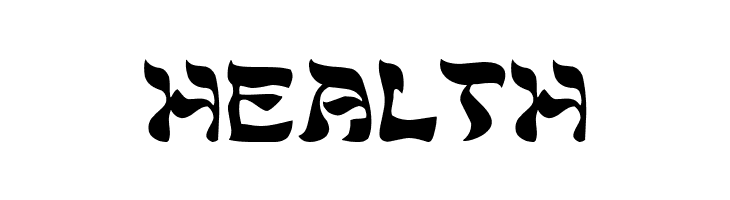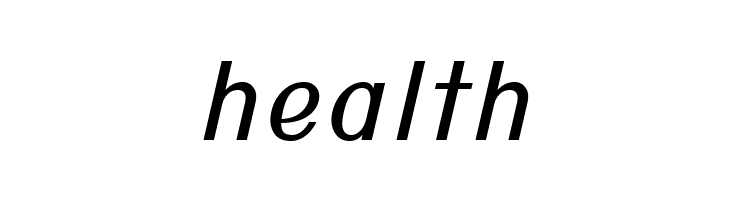
Alice Regular Font
A classic serif font with elegant strokes and balanced proportions.
Pressuru Font
A bold, impactful font with thick, uniform strokes for strong visual presence.
Motion Picture Personal Use Font
A bold, elegant script font with decorative swashes and loops.
Cursive Serif Font
A sophisticated blend of cursive fluidity and serif structure.
DS Sholom Medium Font
A bold, dynamic font with sharp, angular edges and a flowing, artistic style.
Cursive Sans Font
A modern cursive-sans font with elegant slants and fluid readability.
Modern Antiqua Font
A modern serif font with elegant curves and a classic touch.
DS Diploma Art Bold Font
A bold, jagged font with sharp, thorn-like elements for a dynamic look.
Servus Text Display Italic display Font
An elegant italic serif font with smooth curves and refined serifs.
Baseball Club Font
A stitched, embroidered-style decorative font with uppercase letters, numbers, and symbols.
Baseball Club Solid Font
A bold, varsity-inspired font with a rugged, athletic look.
Bloody Scene Font
A bold, dripping display font ideal for horror or Halloween themes.
Pretty Poisons Font
A playful handwritten font with lively, fluid letterforms and smooth strokes.
Barfiola FREE FOR PERSONAL USE Font
A classic serif font with elegant strokes and a modern appeal.
Diacare Font
A playful, flowing script font with smooth, connected strokes.
Valentine Silhouette Font
A romantic and elegant script font with flowing, handwritten style.
Glory of Justice Font
A decorative, star-patterned display font with striped accents for headlines and titles.
Asly Brush Font
A bold and expressive brush script font with dynamic strokes.